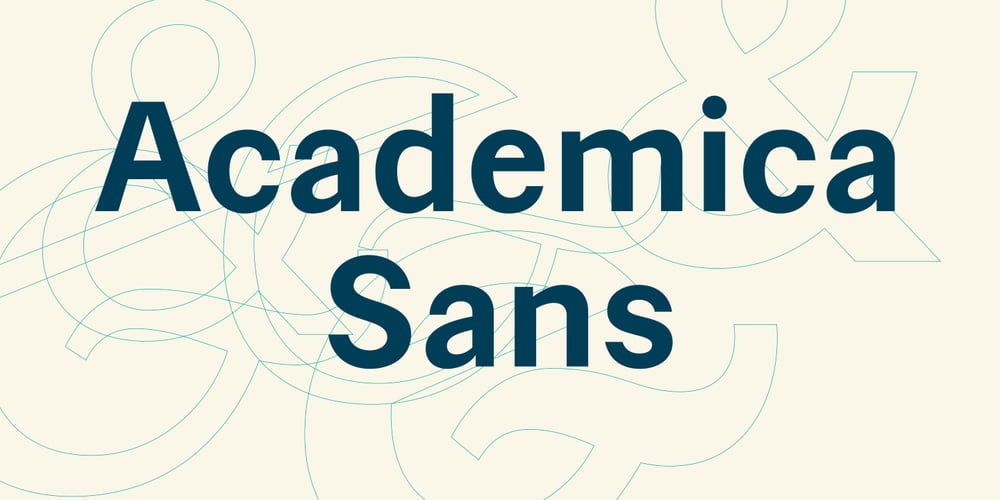
Academica Sans
Academica Sans font
Academica Sans Font Family was designed by František Štorm and published by Storm Type Foundry. Academica Sans contains 10 styles and family package options. Academica Sans was drawn with the aim of following the artistic features of Josef Týfa’s fonts. It has the same proportions as the famous Academica, so both fonts can be successfully combined. It is suitable for all types of literature from scientific to poetry, but also for corporate identity and websites. It has a calm and timeless character.